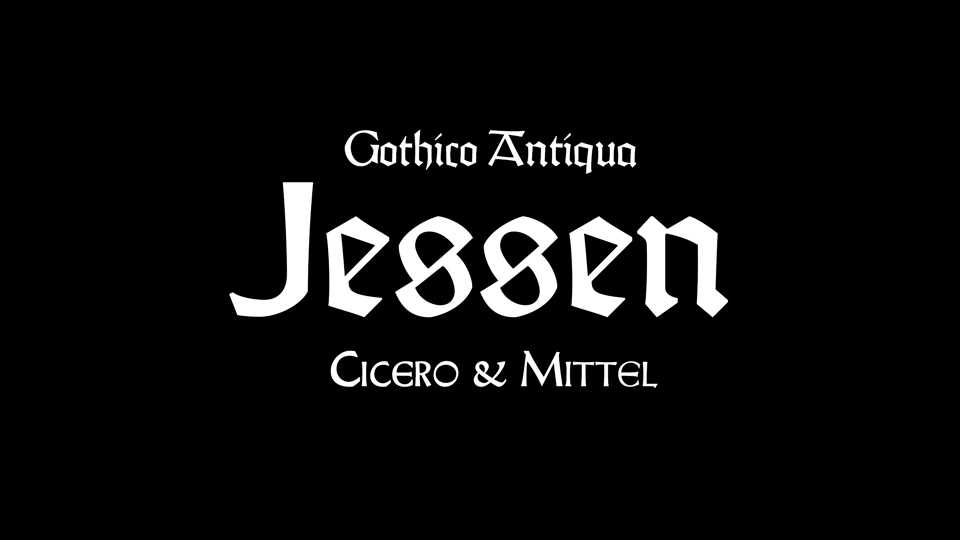
Download Jessen, Hybrid font designed and cut in two sizes without preliminary drawings in Offenbach am Main by Rudolf Koch for The Four Gospels. Printed at the Klingspor press in 1926 and published by Koch himself.
Designer: ANRT Type